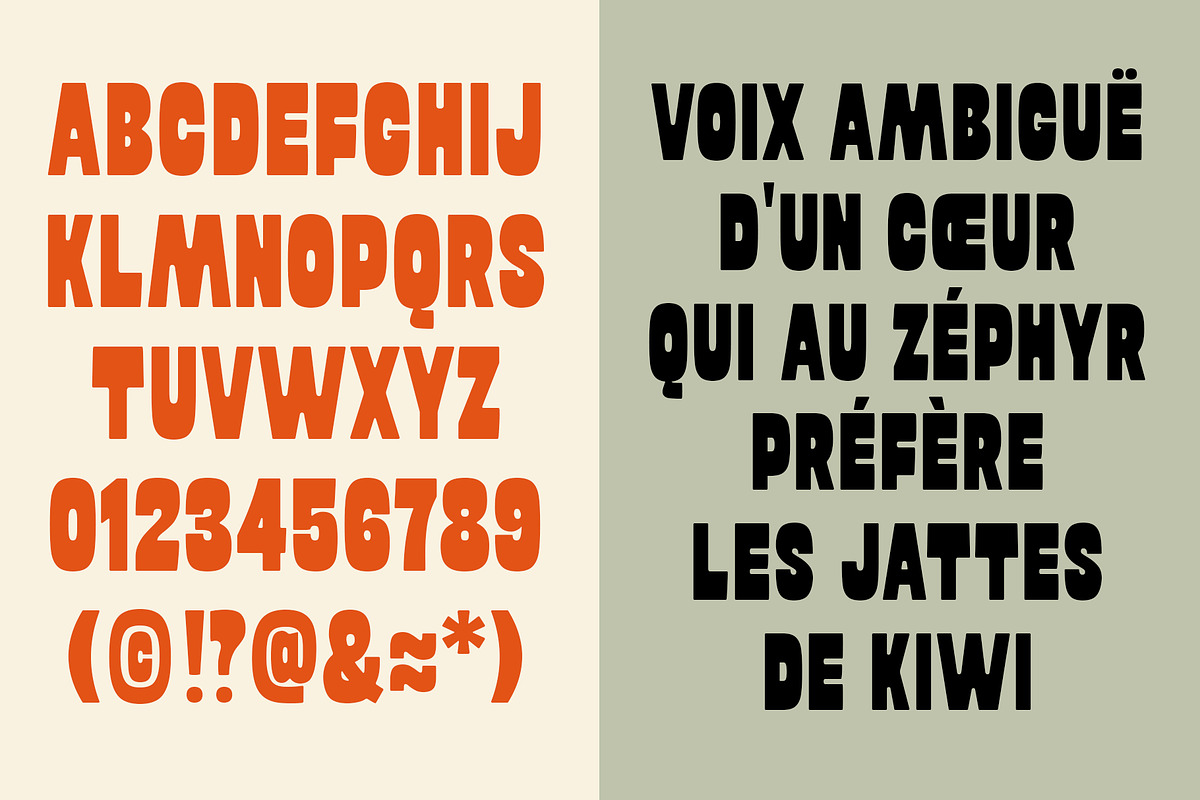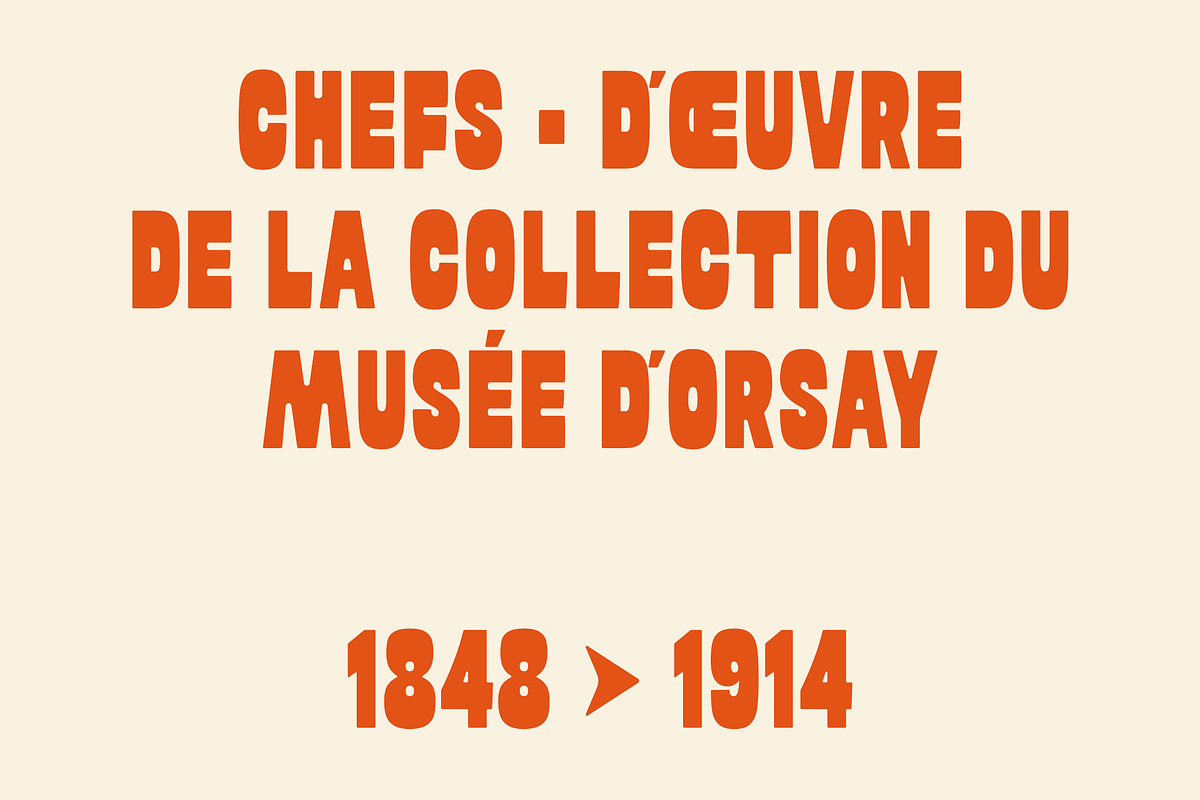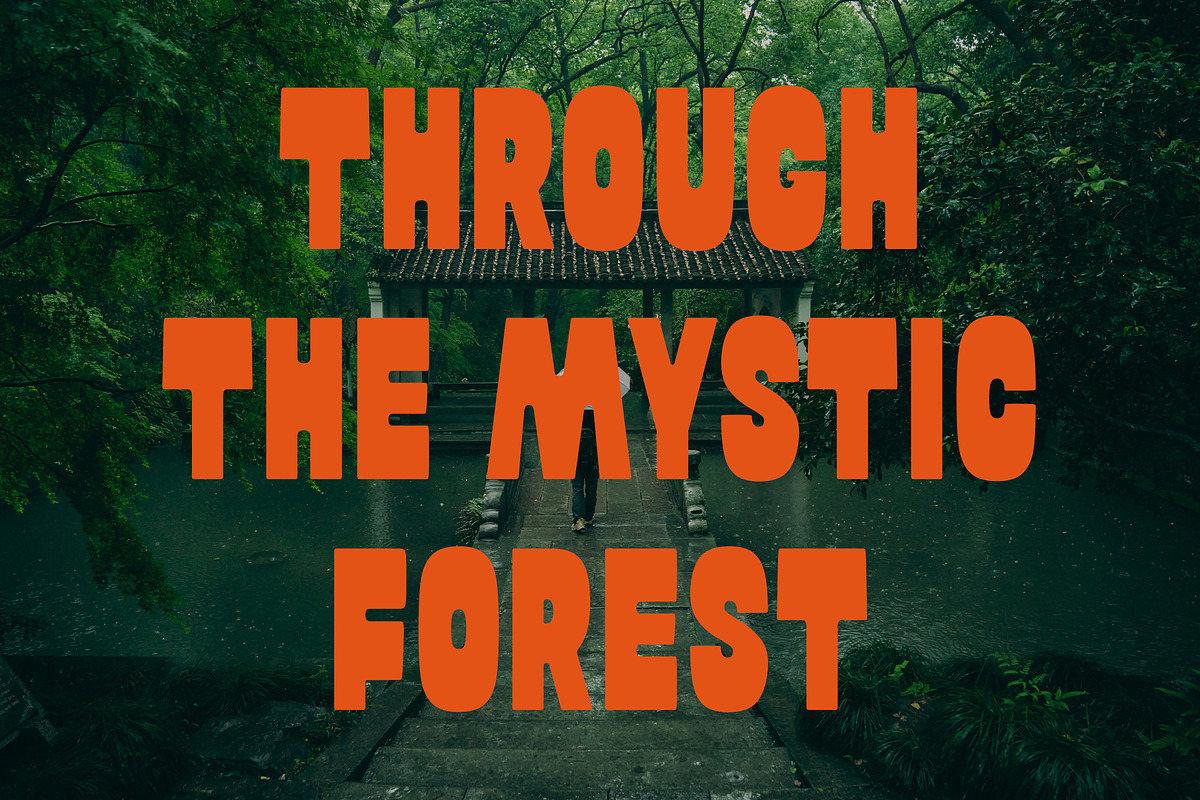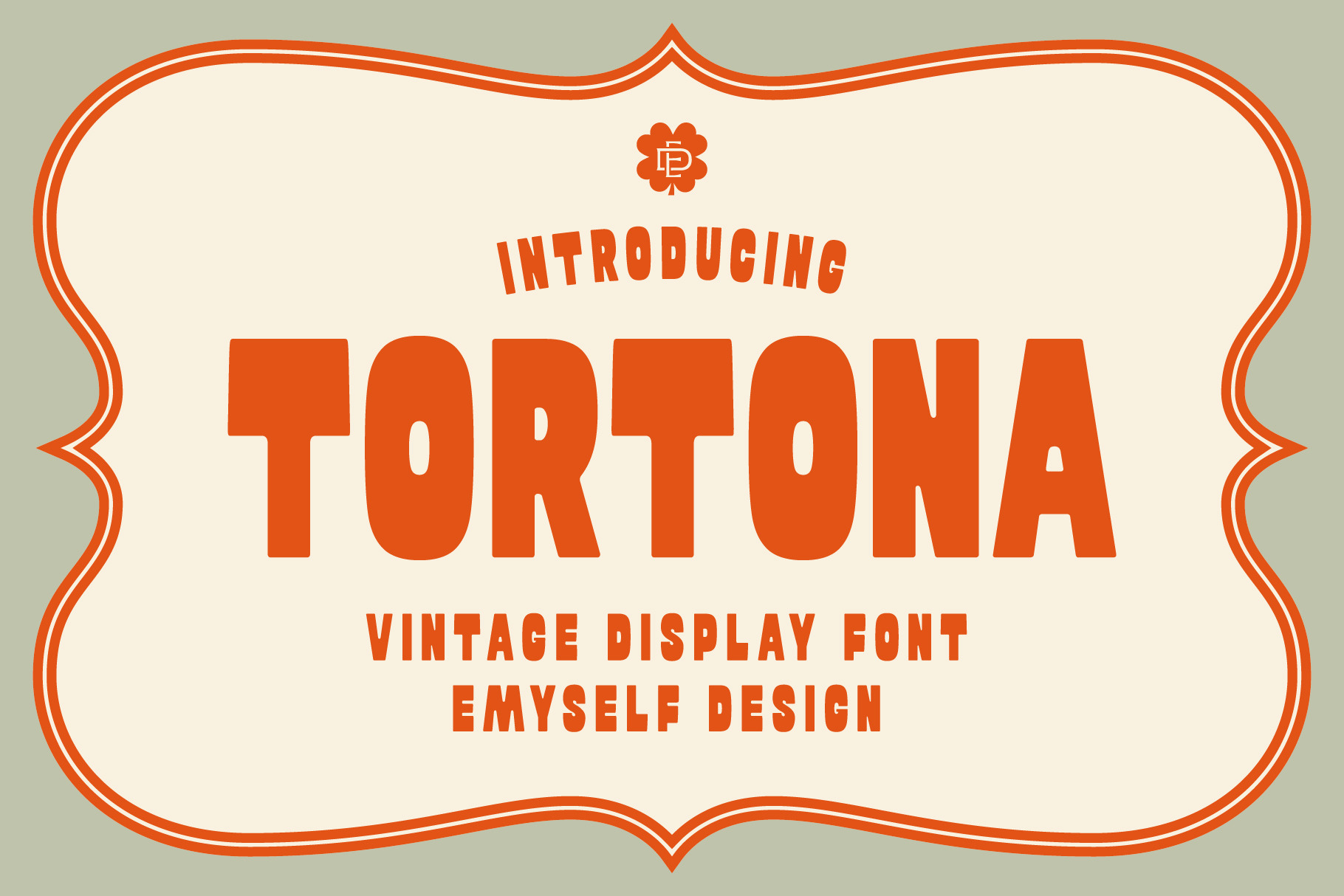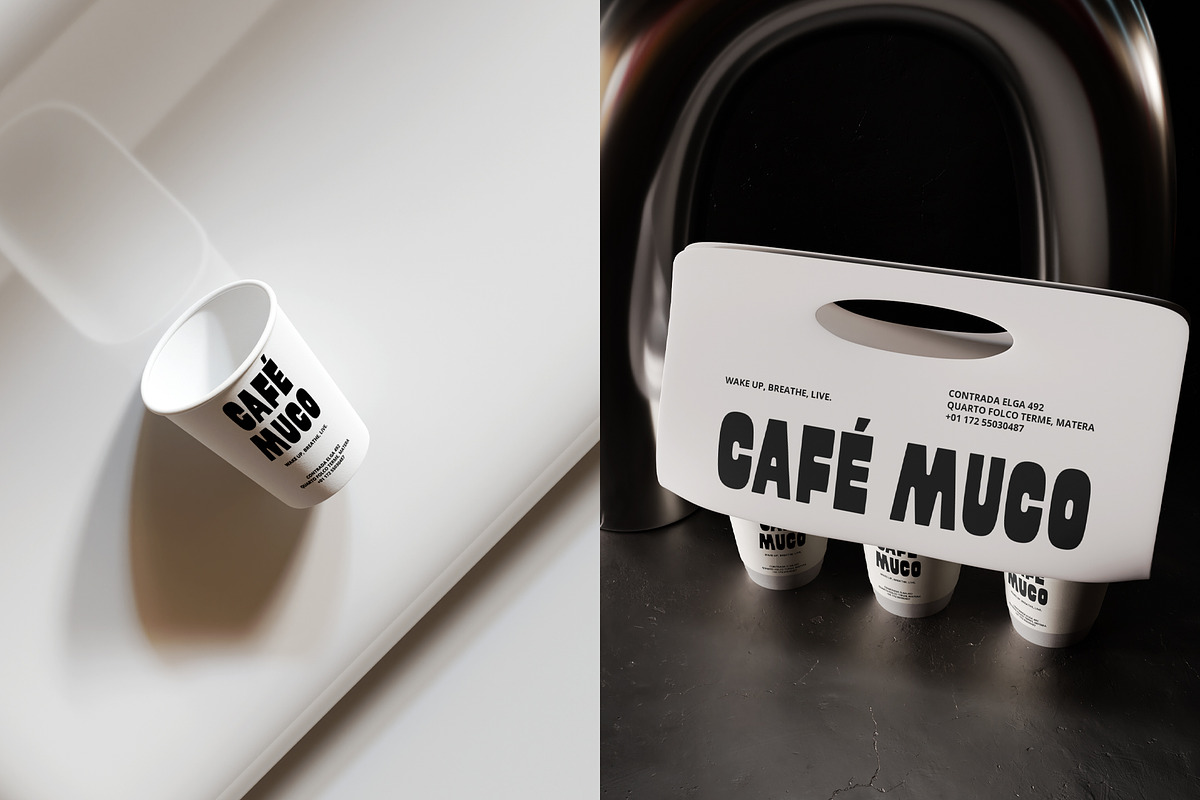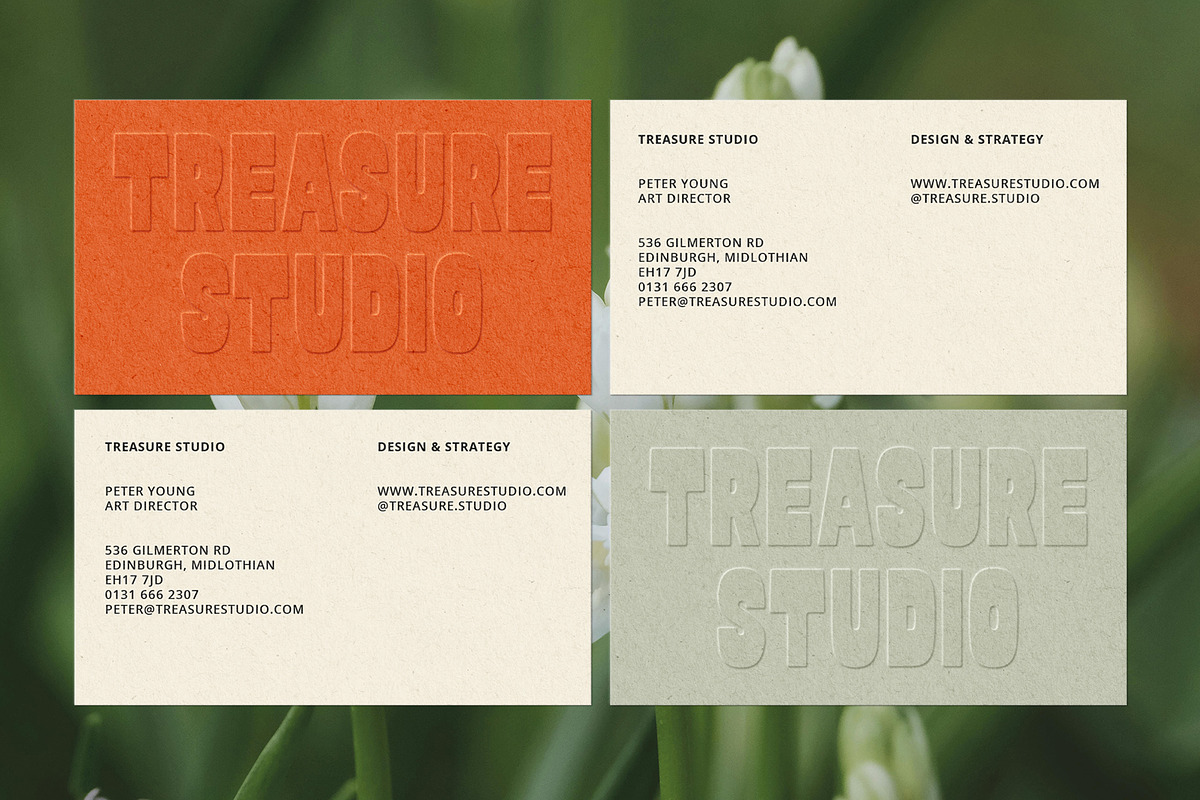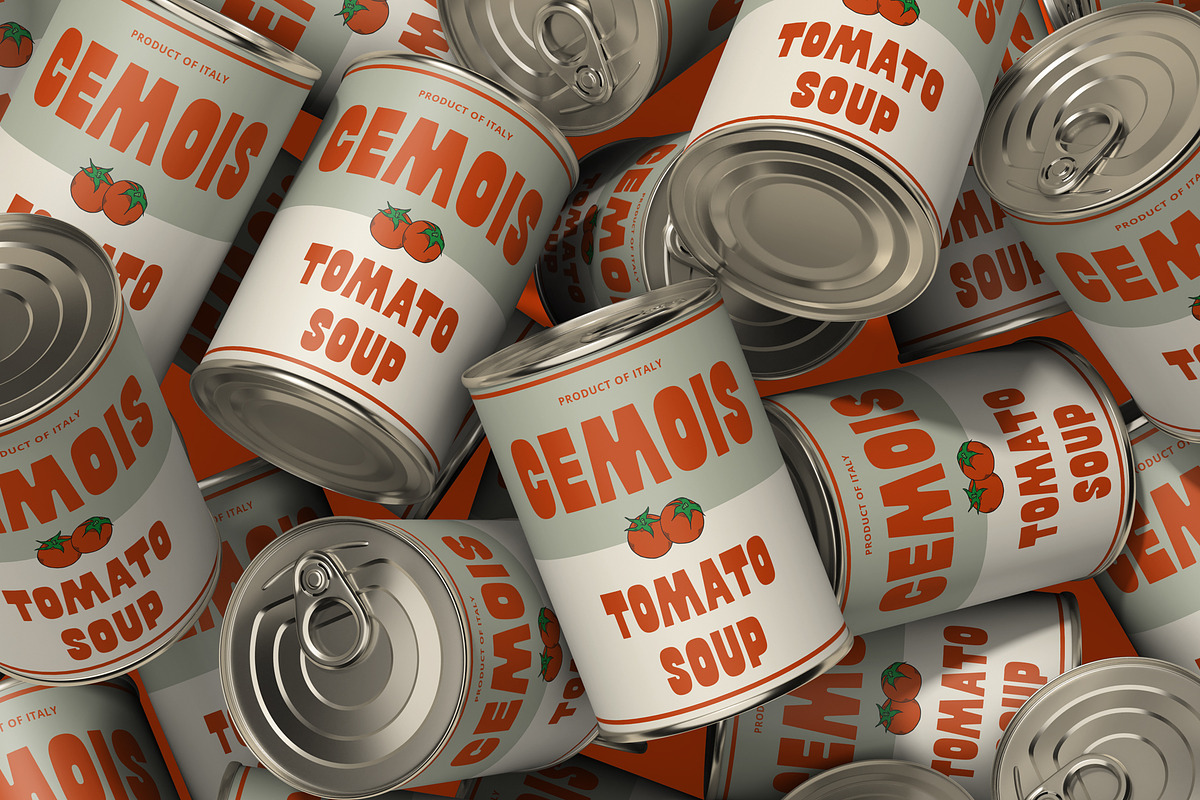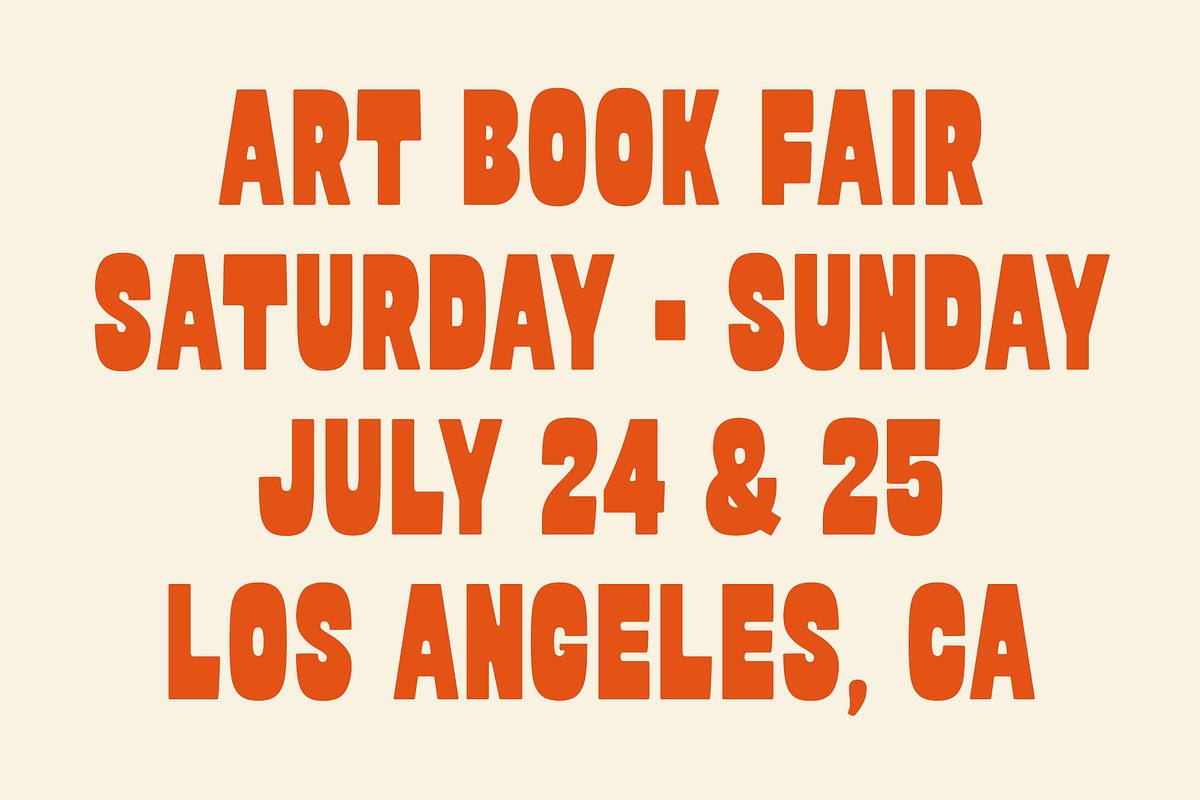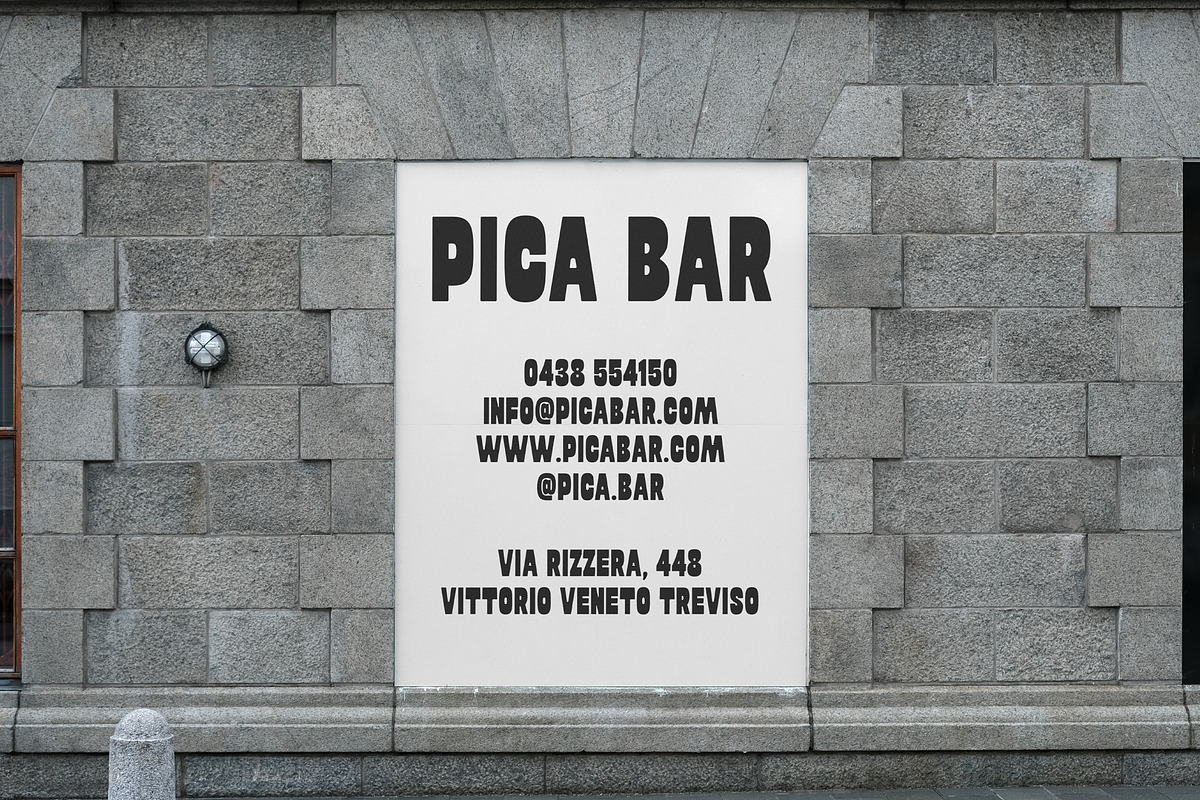
ED Tortona - Display font
Tortona is a vintage-style display font that combines classic characters with a modern touch. With thick lines and soft edges, Tortona exudes a strong yet elegant impression. Suitable for titles, posters, packaging, and design projects that want to highlight a classy retro feel.